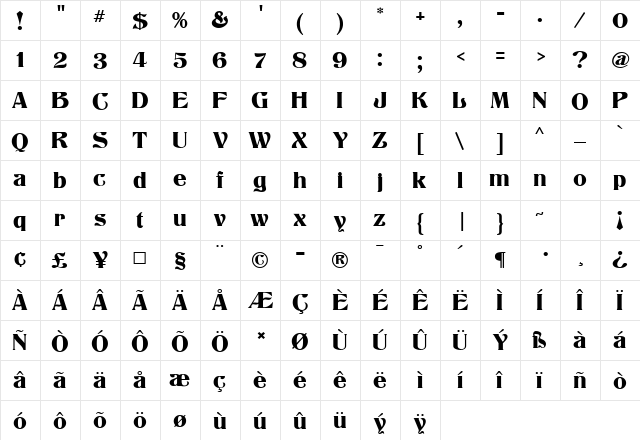
Titania MF Regular Font Preview
Titania MF Regular
Titania MF Regular Font Details
Design Context for Titania MF Typeface
Titania MF is a composed and adaptable typeface that performs quietly and consistently across a wide range of design contexts.
Pro Tip: Use Titania MF in both headline and body roles to test its range before committing to a single application.